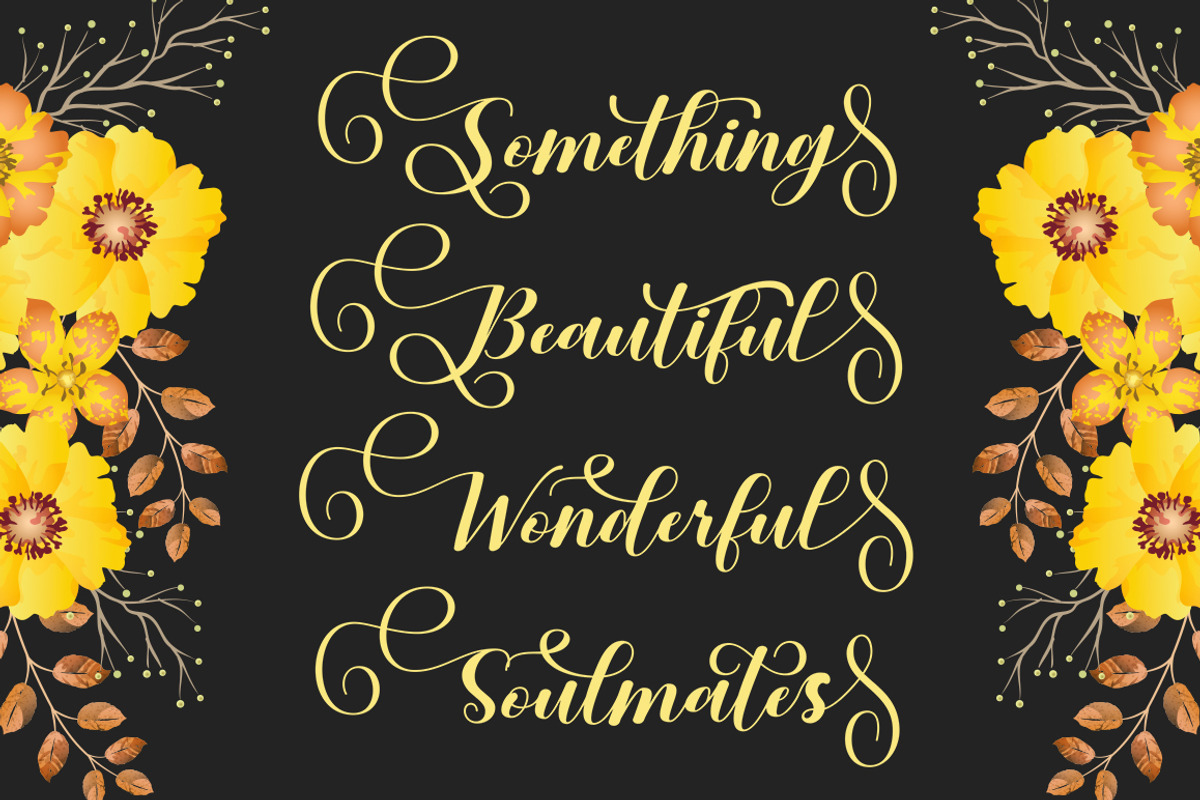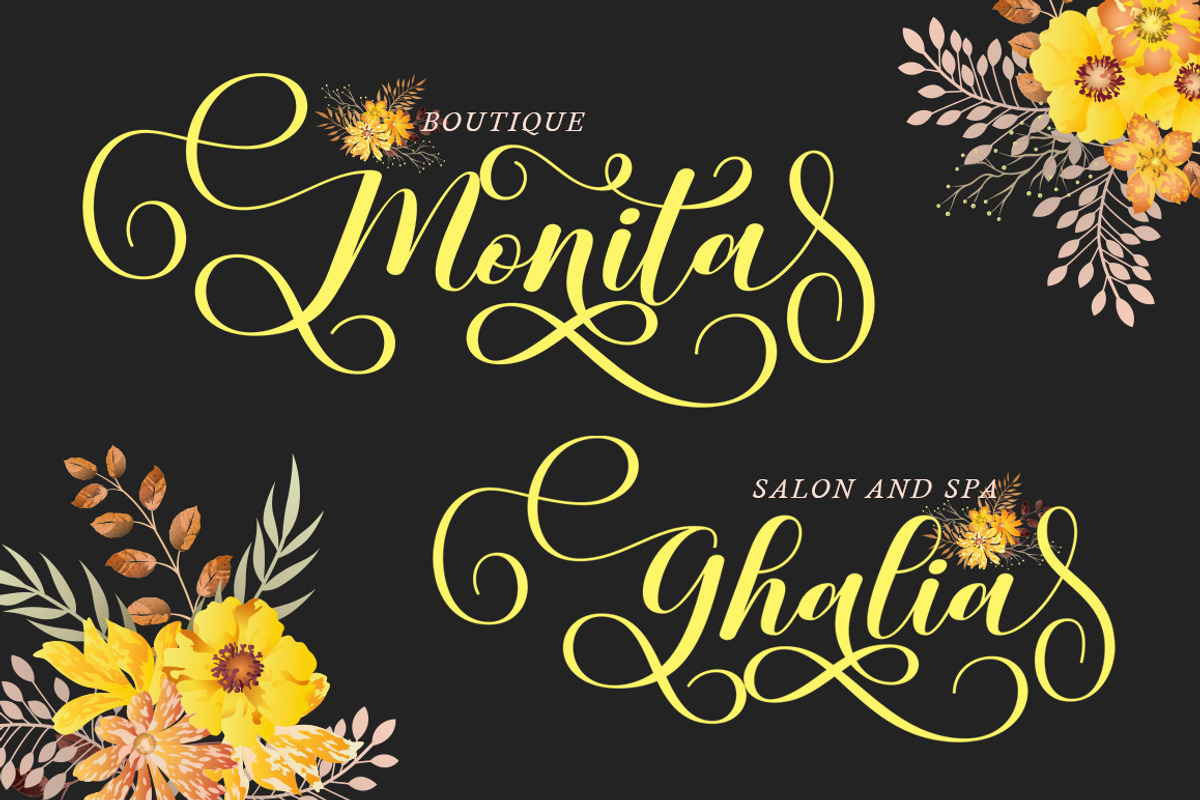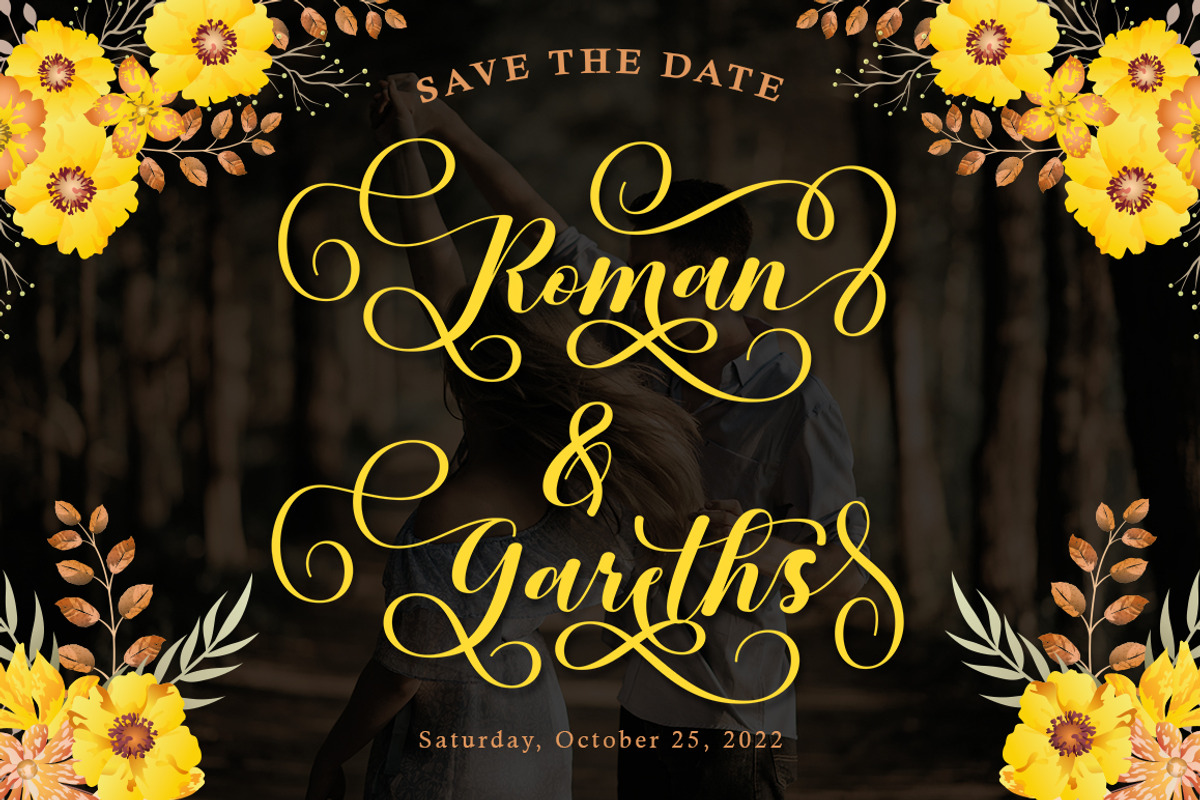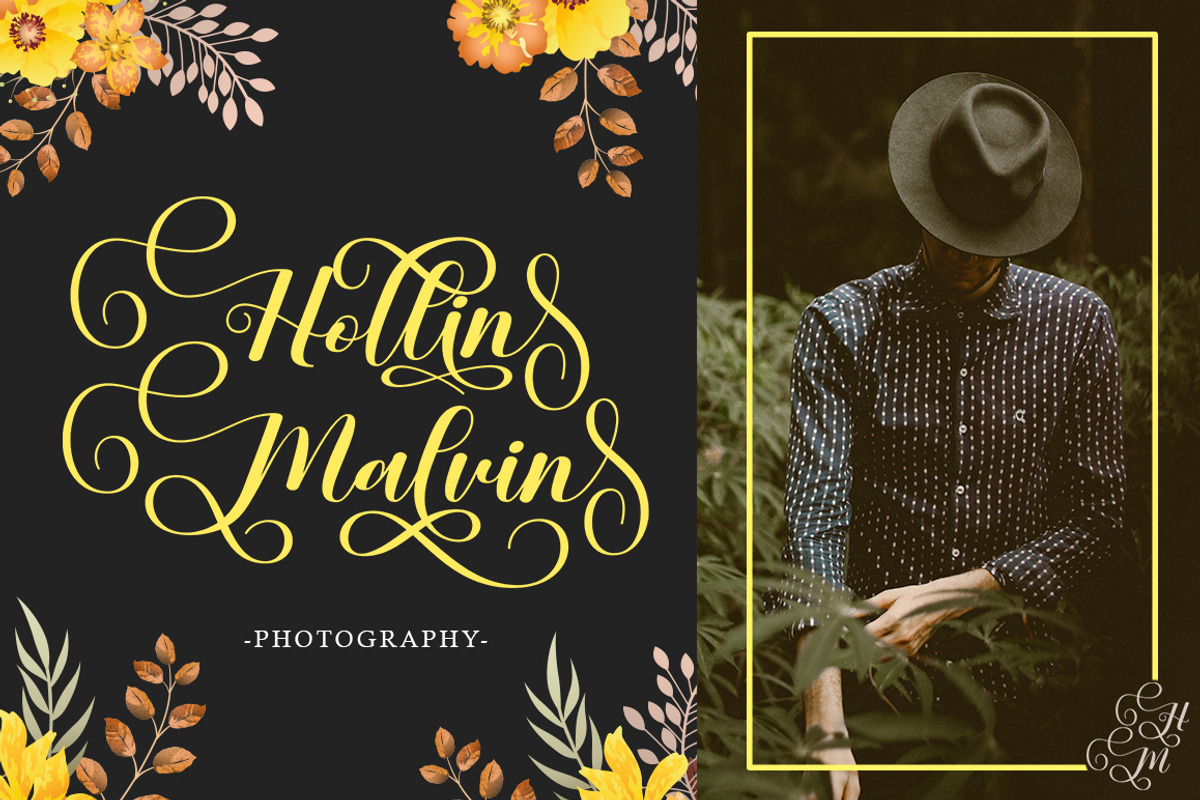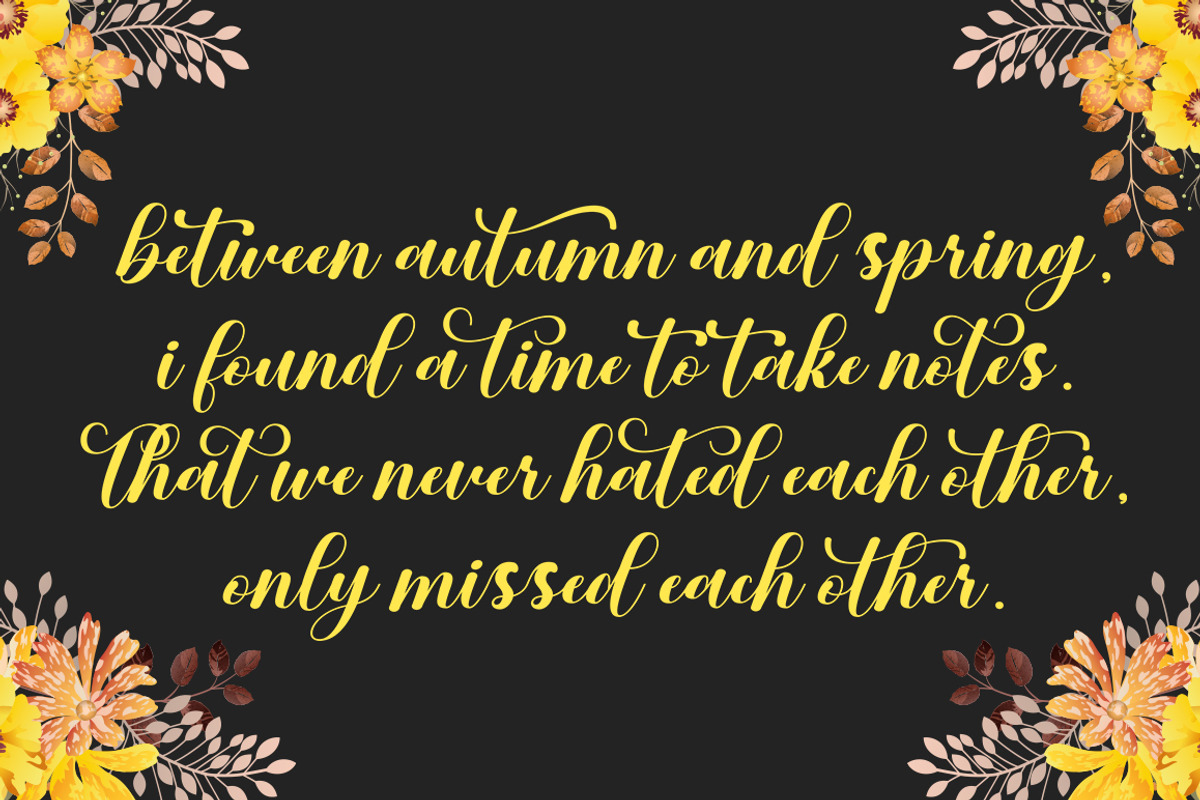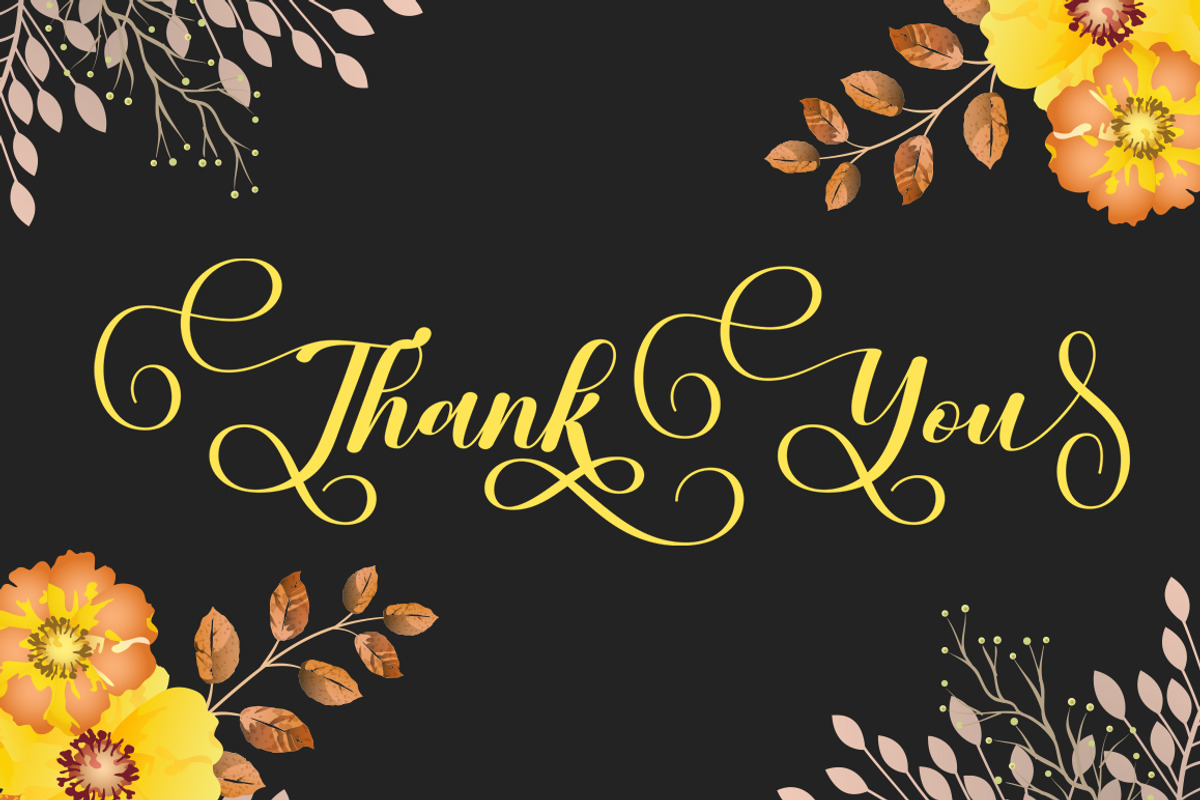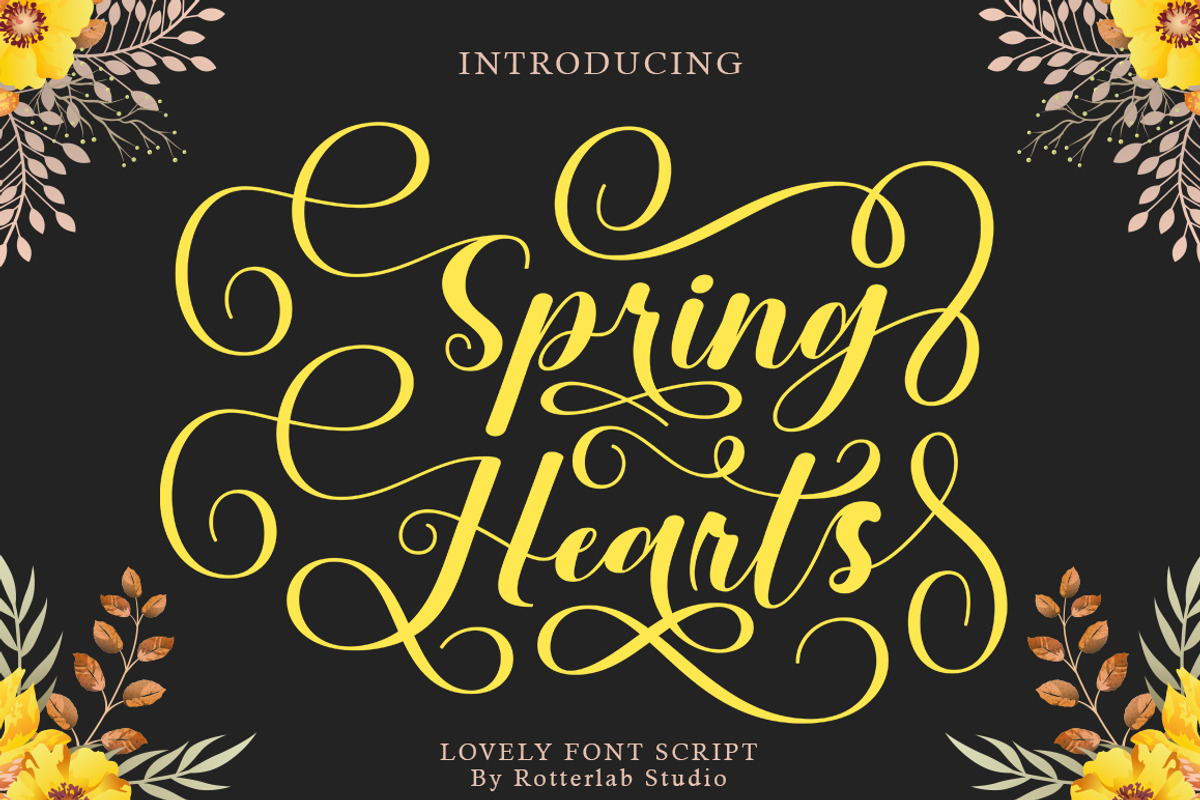
Spring Hearts
Spring Hearts is a modern calligraphy font created especially for Spring.
Spring Hearts is great for unique branding, photo overlays, watermarks, greeting cards, posters, business cards, invitations, weddings, photography, fashion, clothing, letters, stationery, etc.
A wide variety of swashes (a-z), alternate (a-z), ligatures, and multilingual support are included so you can give your logo or name a hand calligraphic look.
Lowercase
Titling,Ligature, & Swash
Number & Punctuation